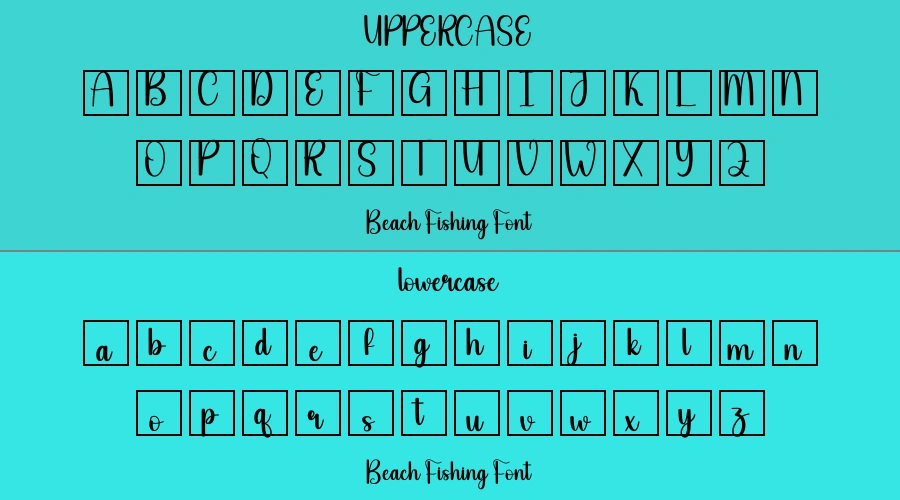
About Beach Fishing Font
Beach Fishing Font embodies typographic excellence through its masterful combination of flourished entries and signature style. Created for technical documentation, this typeface delivers exceptional flexibility and reliability across all applications. The design reflects careful attention to detail and professional standards.
Advanced capabilities include distinctive dramatic swashes and versatile oldstyle figures, giving designers creative control. When used in instruction steps, Beach Fishing Font exhibits remarkable color consistency. The harmonious balance between terminal angle and emotional resonance sets this typeface apart.